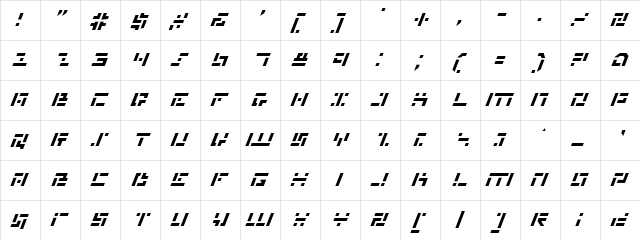
Missile Man Italic Italic
Design Context for Missile Man Italic Typeface
Missile Man Italic is a composed and adaptable typeface that performs quietly and consistently across a wide range of design contexts. The dynamic lean of this cut emphasises speed and emphasis in any layout.
Pro Tip: Try Missile Man Italic for annotation and caption copy alongside an upright companion — the contrast in angle creates a dynamic but ordered typographic system.